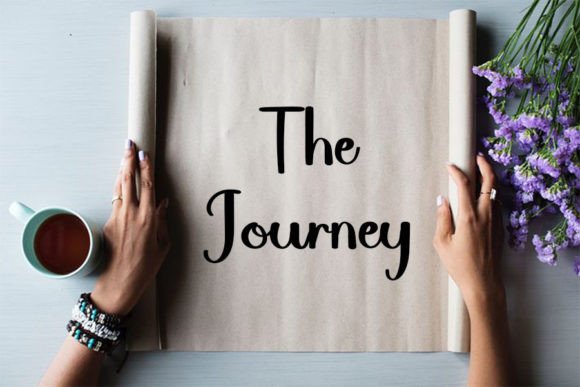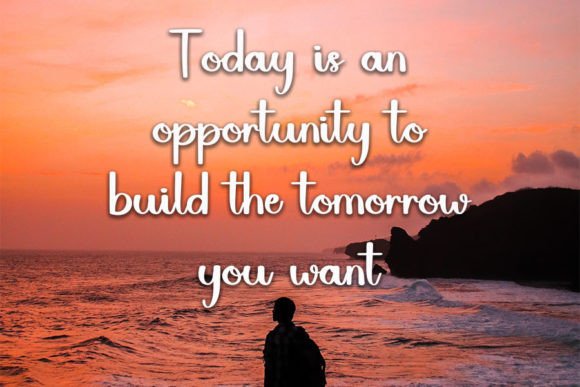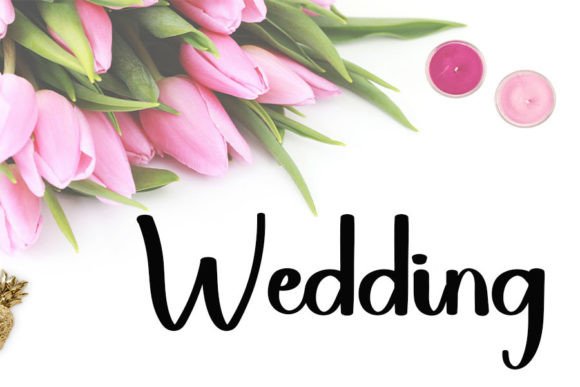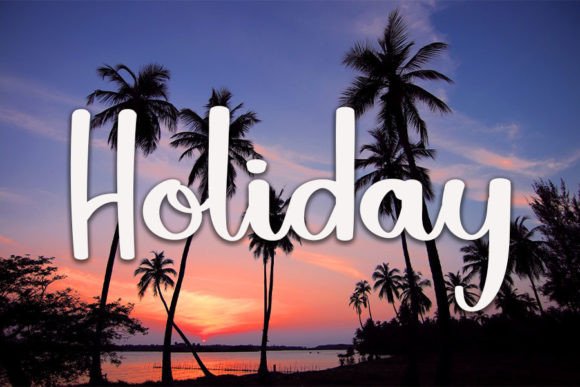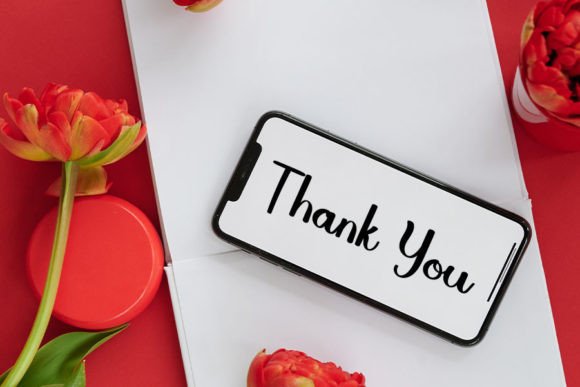
Introducing Daily Font: The Magical Handwritten Font for Your Creative Projects
Are you a designer, crafter, or DIY enthusiast looking for a unique and elegant font to elevate your creative projects? Look no further than Daily Font, a beautifully crafted handwritten font that combines clean lines with a touch of quirkiness. In this article, we’ll explore the features and benefits of Daily Font, and how it can be the perfect fit for your logos, branding, social media, and crafty DIY projects.
The Story Behind Daily Font
Daily Font is a carefully crafted handwritten font that is designed to bring a touch of elegance and sophistication to your creative projects. With its clean lines and subtle quirks, this font is perfect for designers and crafters who want to add a personal touch to their work. Whether you’re creating a logo, branding materials, or social media graphics, Daily Font is the perfect choice.
Key Features of Daily Font
• Handwritten with love: Daily Font is a carefully crafted handwritten font that is designed to bring a personal touch to your creative projects.
• Clean and elegant: With its clean lines and subtle quirks, Daily Font is the perfect choice for designers and crafters who want to add a touch of elegance to their work.
• Quirky and unique: Daily Font has a unique and quirky personality that sets it apart from other fonts.
• Perfect for logos and branding: Daily Font is the perfect choice for logos, branding materials, and social media graphics.
• Suitable for DIY projects: Daily Font is also perfect for crafty DIY projects, such as handmade cards, scrapbooking, and other paper crafts.
Benefits of Using Daily Font
• Add a personal touch: Daily Font is a handwritten font that adds a personal touch to your creative projects.
• Stand out from the crowd: With its unique and quirky personality, Daily Font is sure to make your creative projects stand out from the crowd.
• Elegant and sophisticated: Daily Font brings a touch of elegance and sophistication to your creative projects.
• Versatile: Daily Font is perfect for a wide range of creative projects, from logos and branding to DIY paper crafts.
How to Use Daily Font
• Logos and branding: Use Daily Font to create unique and memorable logos and branding materials.
• Social media graphics: Use Daily Font to create eye-catching social media graphics that stand out from the crowd.
• DIY paper crafts: Use Daily Font to add a personal touch to your handmade cards, scrapbooking, and other paper crafts.
• Experiment with different colors and textures: Daily Font looks great in a variety of colors and textures, so don’t be afraid to experiment and find the perfect combination for your creative project.
In conclusion, Daily Font is a magical handwritten font that is perfect for designers, crafters, and DIY enthusiasts who want to add a touch of elegance and sophistication to their creative projects. With its clean lines, subtle quirks, and unique personality, Daily Font is sure to make your creative projects stand out from the crowd. So why wait? Try Daily Font today and see the difference it can make in your creative projects!